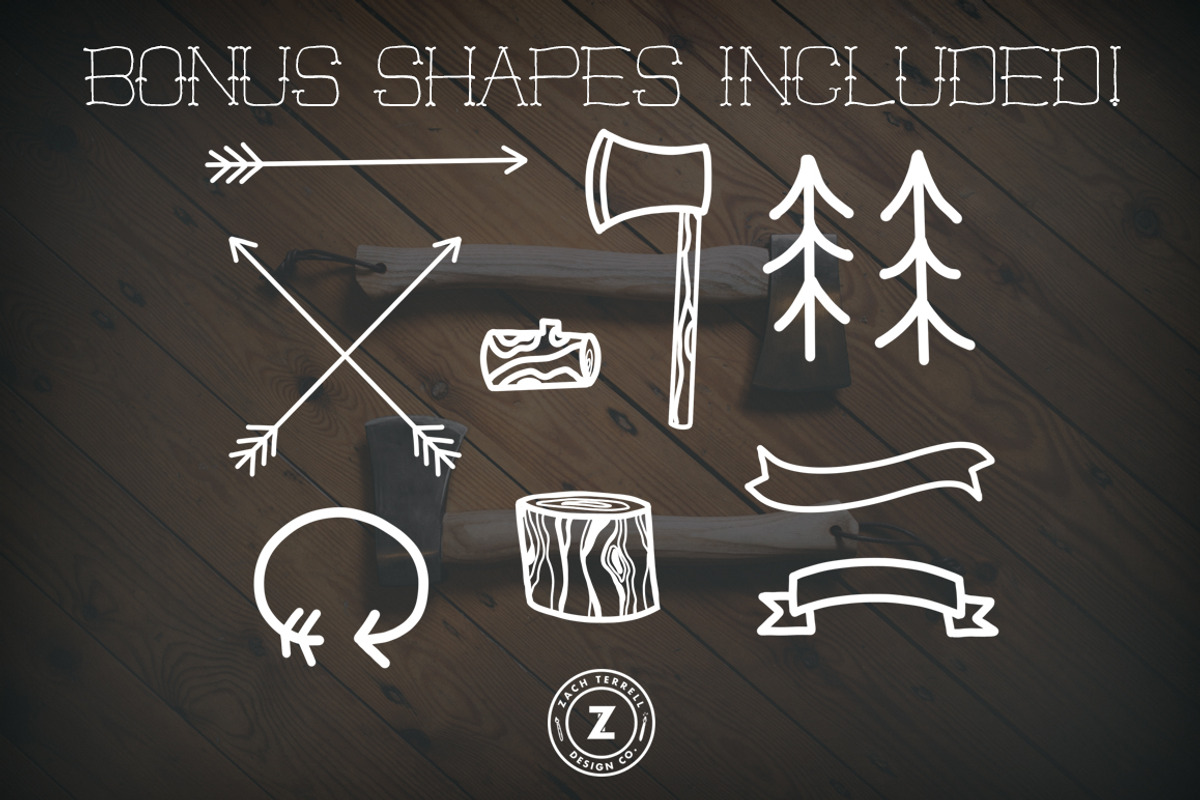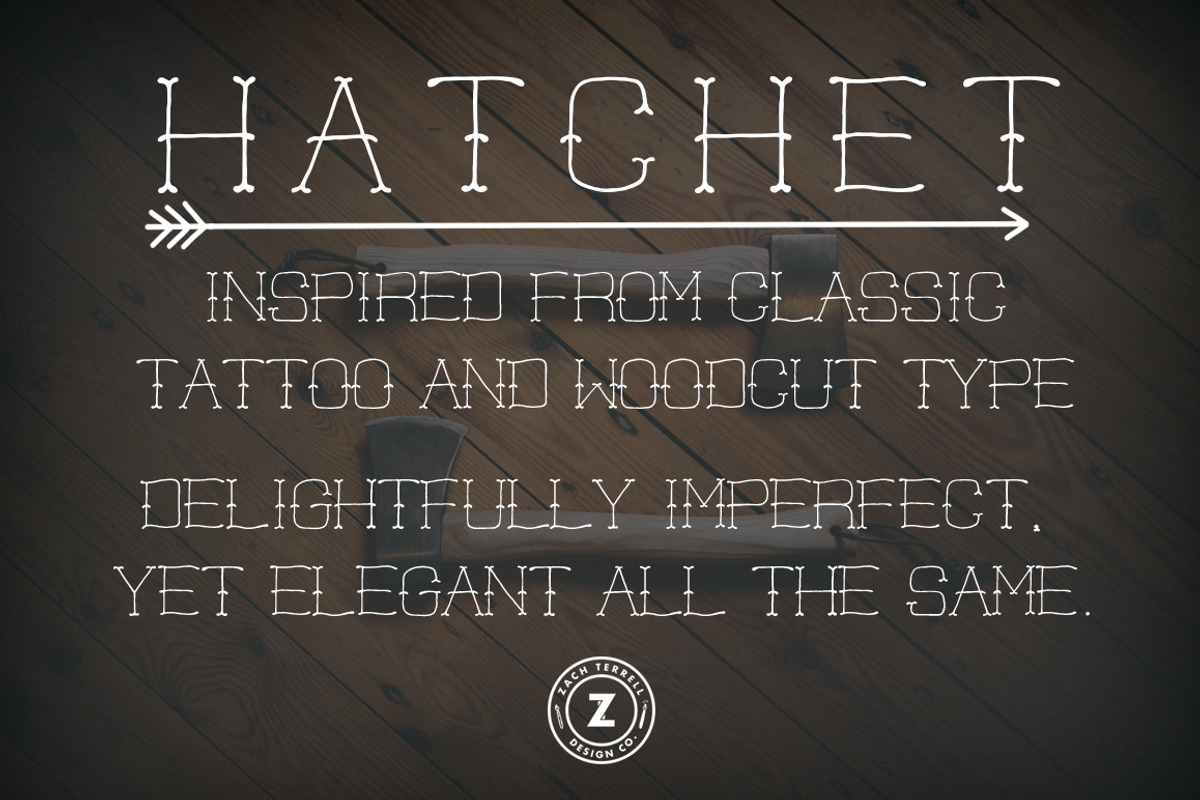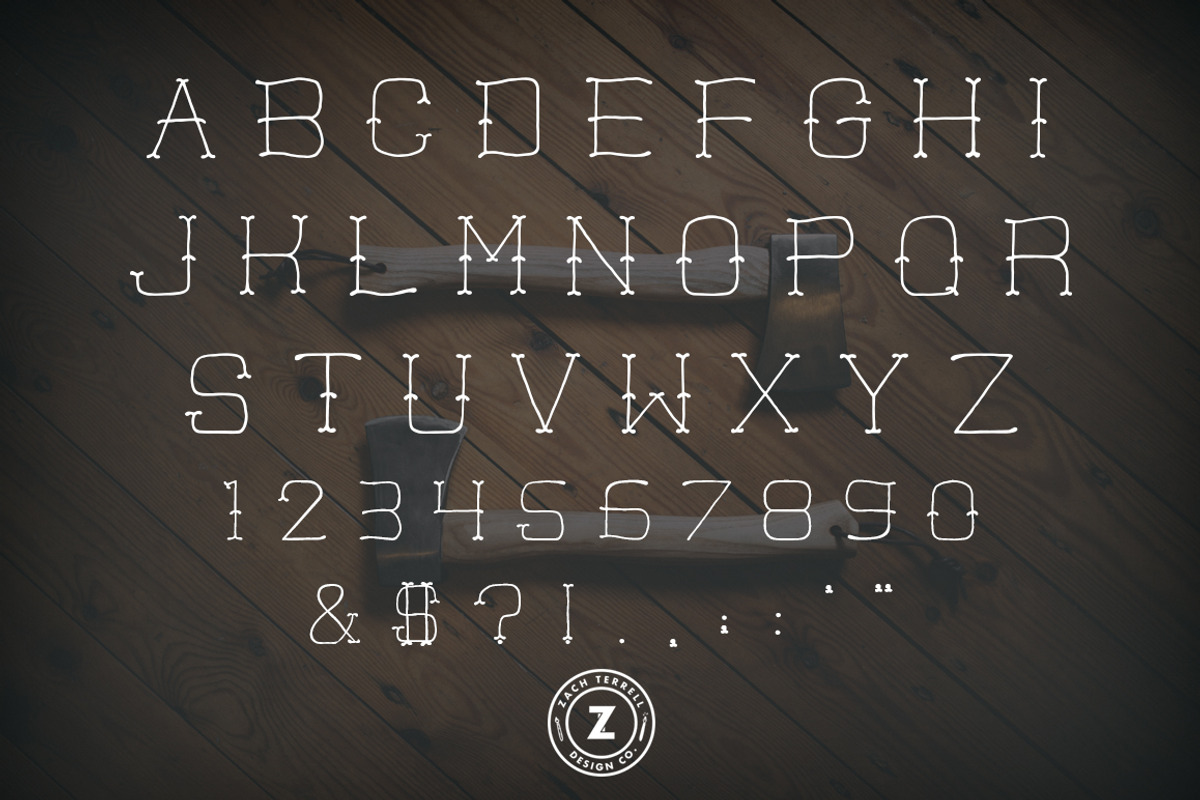
Hatchet Font
Hatchet Font by Zach Terrell Design is a font selected for branding, posters, packaging, typography.
- It consists of only capital letters and punctuation, making it perfect for headings and titles.
- Updated to include number characters AS WELL as a Bonus Shapes .PNG!
Hatchet Font by Zach Terrell Design fits naturally into Branding, posters, packaging, typography.